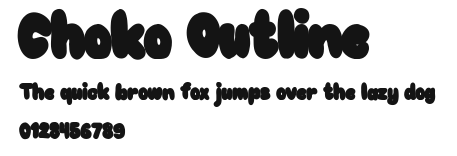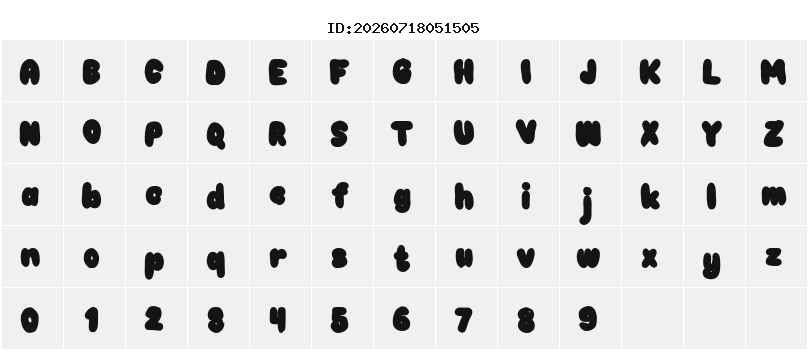
• Font Name: Choko Outline
• Font ID: MnsGrebck: Choko Outline: 2016
• Full Font Name: Choko Outline
• PostScript Name: ChokoOutline
• Character Count: 370
• Designer: MÂns Greb‰ck
• Manufacturer: MÂns Greb‰ck
About Choko Outline.ttf
Choko Outline.ttf is a modern, elegant sans-serif font designed for ultimate readability and visual harmony. Perfect for branding, headlines, web design, and print materials.